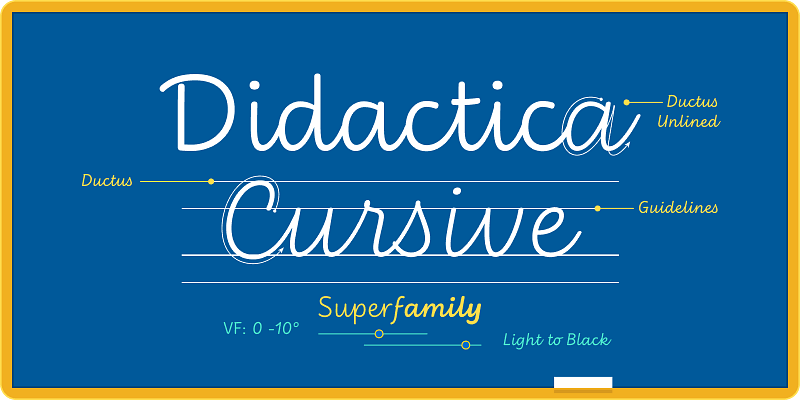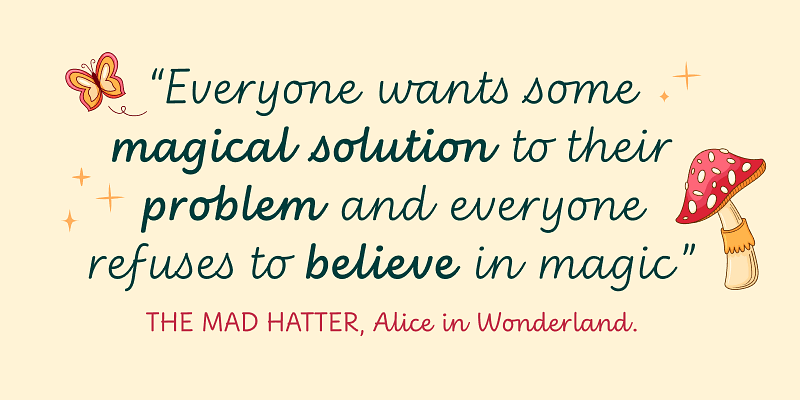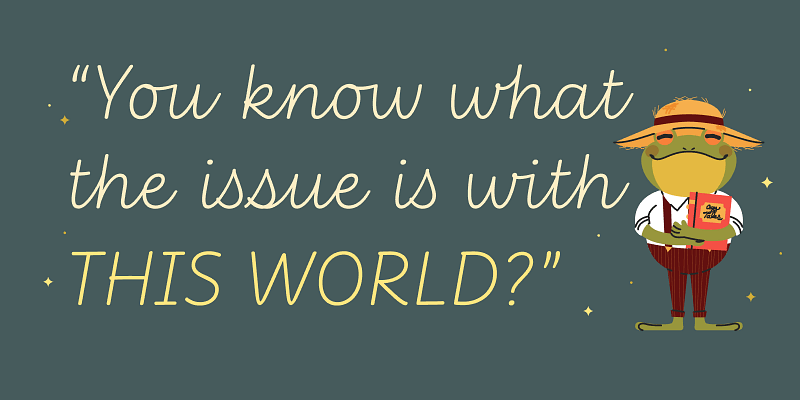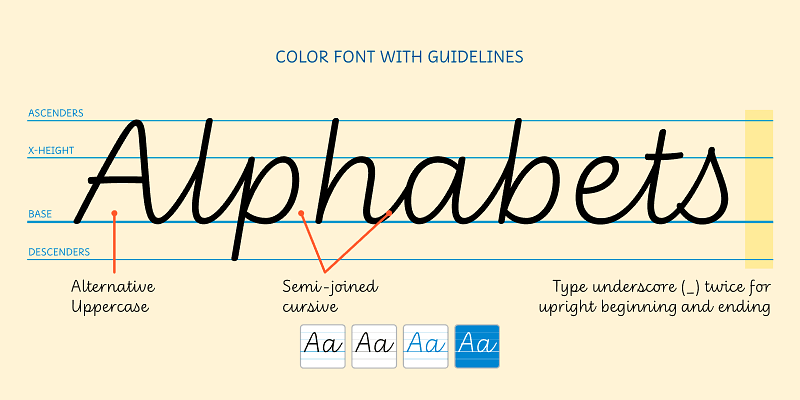
Didactica Cursive is the second stage of the Didactica super-family—a partially joined italic script reflecting Tom Gourdie’s philosophy of two closely related alphabets: one for print, one for cursive. Some lowercase letters join naturally while others remain disconnected. Both stages share proportions, structure, and rhythm, allowing the typeface to grow with the learner’s skill.
Like Didactica, it offers customizable weights and slants, Guidelines, and Ductus with directional arrows, including options for left-handed learners. Upright letterforms further support left-handed children. Designed for early-learning materials and children’s media, Didactica Cursive serves publishers, teachers, parents, and designers across the literacy landscape.